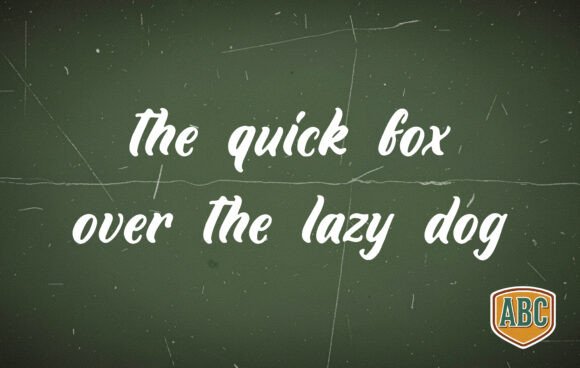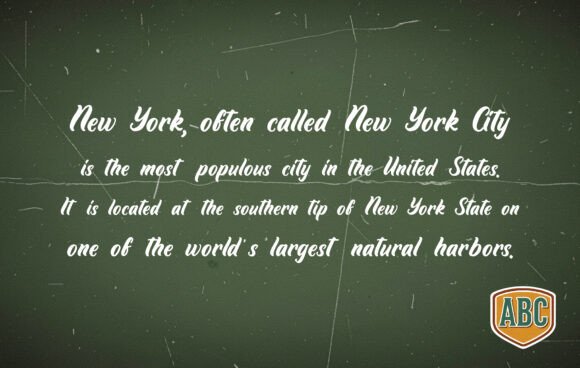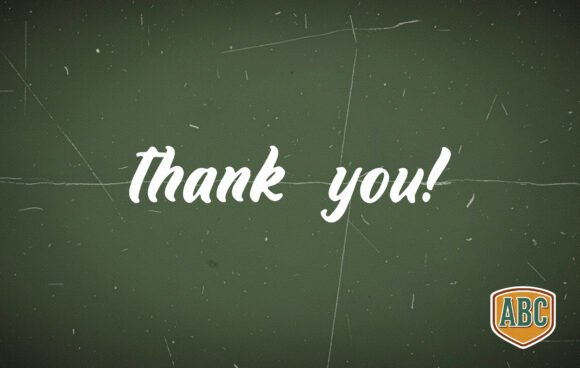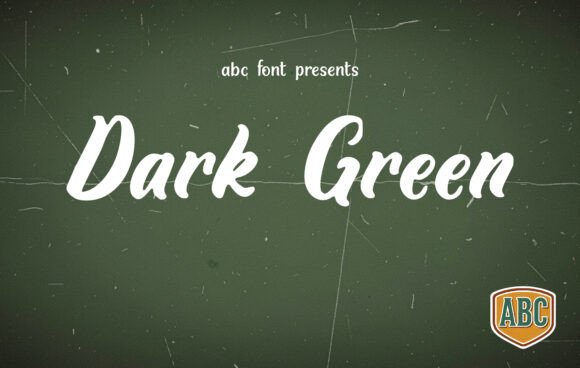
Injecting Vintage Energy into Your Designs with Dark Green Font
Are you looking to add a touch of nostalgia to your designs while still keeping them fresh and modern? Look no further than Dark Green, a bold script font that embodies the spirited aesthetic of mid-century sign painting. With its thick, confident brushstrokes and casual, rhythmic flow, this typeface is sure to make a statement in any design.
What is Dark Green Font?
Dark Green is a bold script font that is characterized by its heavy weight and fluid connections. Its slightly organic, hand-lettered edges provide an authentic touch that works beautifully for everything from artisanal packaging to retro-inspired social media content. This font is perfect for designers and crafters who want to add a touch of vintage energy to their designs.
Key Features of Dark Green Font
- Thick, confident brushstrokes: Dark Green features thick, confident brushstrokes that give it a bold and eye-catching appearance.
- Casual, rhythmic flow: The font has a casual, rhythmic flow that feels both nostalgic and refreshingly modern.
- Heavy weight: Dark Green’s heavy weight makes it perfect for high-visibility branding and spirited headlines.
- Fluid connections: The font’s fluid connections give it a smooth and elegant appearance.
- Hand-lettered edges: Dark Green’s slightly organic, hand-lettered edges provide an authentic touch that works beautifully for artisanal packaging and retro-inspired social media content.
Uses for Dark Green Font
Dark Green is a versatile font that can be used for a variety of design projects. Here are some ideas to get you started:
- Branding: Use Dark Green for high-visibility branding projects, such as logos, business cards, and letterheads.
- Headlines: The font’s bold and eye-catching appearance makes it perfect for spirited headlines in magazines, newspapers, and online publications.
- Packaging: Dark Green works beautifully for artisanal packaging, such as labels, tags, and product packaging.
- Social media content: Use the font to create retro-inspired social media content, such as Instagram posts, Facebook graphics, and Twitter headers.
Tips for Using Dark Green Font
Here are some tips for using Dark Green font in your designs:
- Use it boldly: Dark Green is a bold font, so don’t be afraid to use it boldly in your designs.
- Experiment with colors: The font works well with a variety of colors, so experiment with different color combinations to find the one that works best for your design.
- Pair it with other fonts: Dark Green can be paired with other fonts to create a unique and interesting design.
- Keep it simple: Don’t overcomplicate your design. Keep it simple and let the font do the talking.
Dark Green font is a bold and eye-catching script font that is perfect for designers and crafters who want to add a touch of vintage energy to their designs. With its thick, confident brushstrokes and casual, rhythmic flow, this typeface is sure to make a statement in any design. Whether you’re looking to create high-visibility branding, spirited headlines, or retro-inspired social media content, Dark Green is a great choice.
Get Creative with Dark Green Font
So why not give Dark Green font a try? With its versatility and bold appearance, it’s sure to inspire your creativity and take your designs to the next level. Whether you’re a seasoned designer or a crafty DIY enthusiast, Dark Green font is a great addition to your design toolkit.